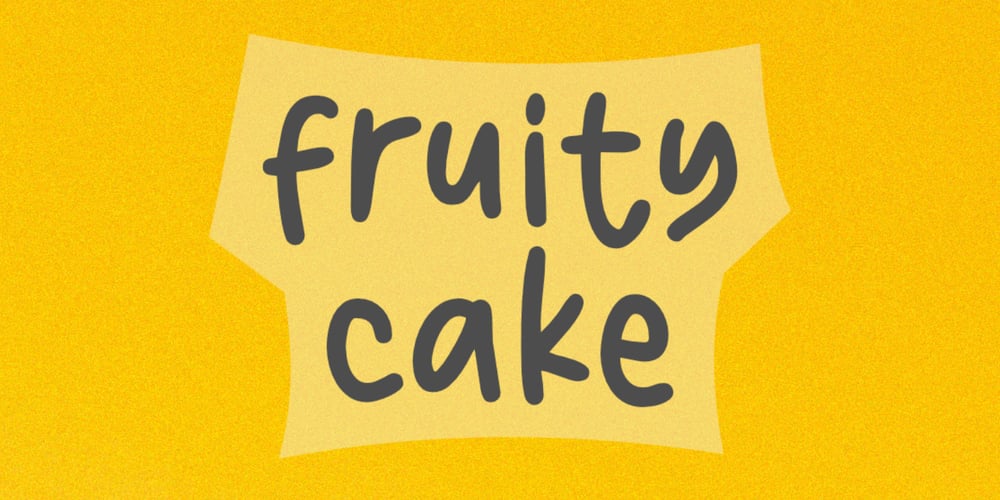
Fruity Cake Font Family was designed by Aldy Sidik and published by Epiclinez. Fruity Cake contains 1 styles and family package options. Fruity Cake is a sweet and friendly handwritten font. Its natural and unique style makes it incredibly fitting to a large pool of designs. The only limit is your imagination!